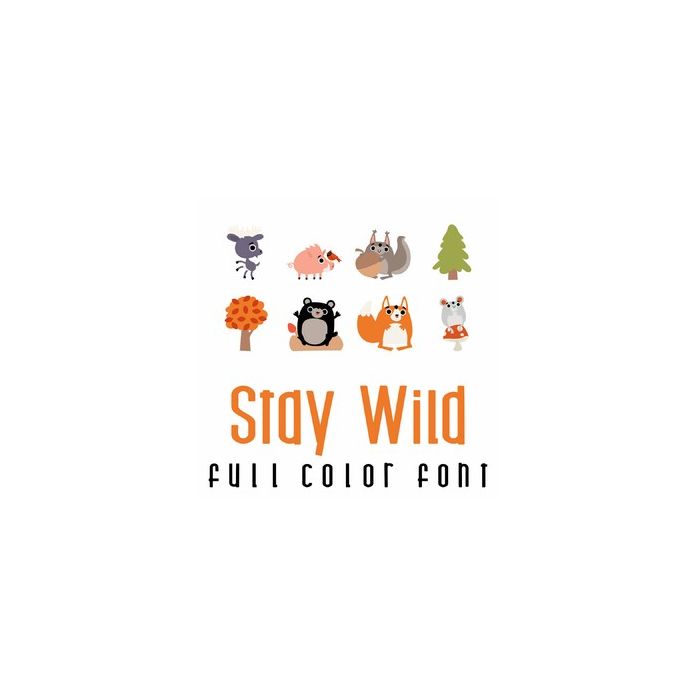
This fun full color doodlebat font features 26 adorable forest animals ready for Fall. Perfect for cards, crafts, gifts, decor, scrap book pages, planner stickers and more!